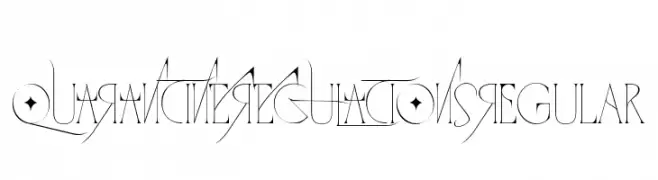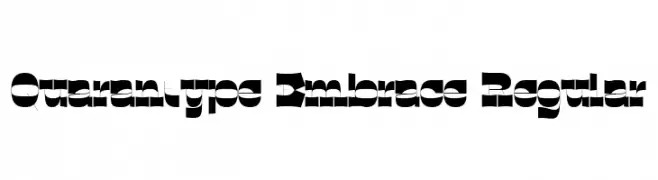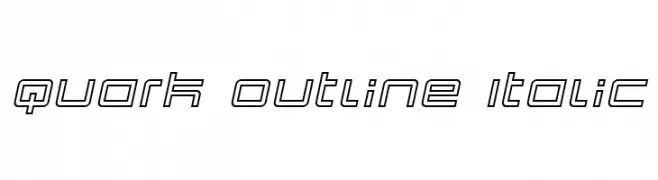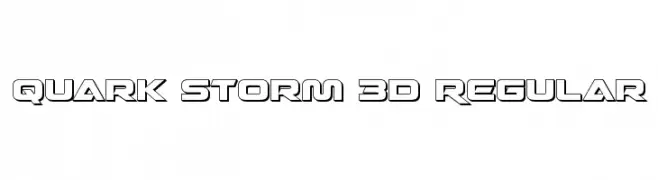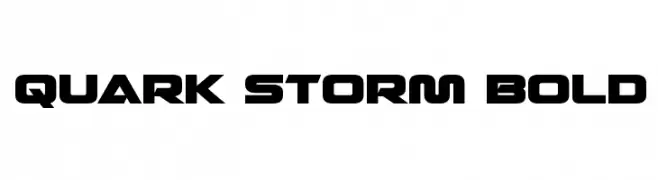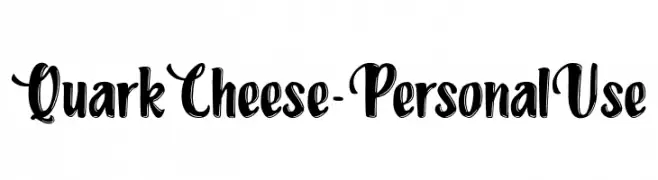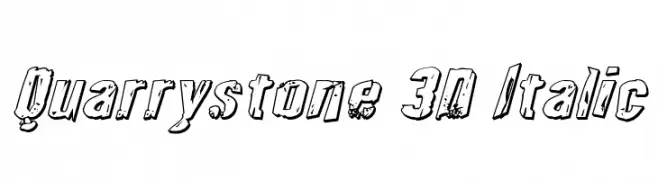
A decorative and artistic font with elongated strokes and sharp serifs.
A classic, elegant script font with flowing, cursive letterforms and medium contrast.
A bold, dynamic script font with high contrast and a sense of motion.
A bold, high-contrast font with geometric and artistic elements.
A bold, geometric font with a modern and futuristic style.
A bold, geometric font with modern, angular lines and unique cutouts.
A classic serif font with elegant strokes and a modern twist.
A modern, geometric font with consistent stroke width and rounded edges.
A bold, angular font with a futuristic and geometric style.
A modern, italicized font with a sleek, futuristic design and tight character spacing.
A geometric outline font with a futuristic and modern aesthetic.
A modern, geometric outline font with an italic slant, ideal for futuristic designs.
A dynamic 3D italic font with a futuristic and bold design.
A bold, futuristic 3D font with sharp angles and geometric shapes.
A bold, italicized font with a futuristic and dynamic design.
A bold, futuristic font with geometric and angular design elements.
A bold, futuristic font with sharp angles and geometric shapes.
A bold, italicized font with a futuristic and dynamic style.
A bold, futuristic font with angular, geometric characters and a condensed width.
A bold, condensed, and italic font with a futuristic and dynamic style.
A bold, futuristic font with expanded width and angular, geometric characters.
A bold, expanded, and italicized futuristic font with sharp angles.
A futuristic, italic font with gradient line effects and sharp angles.
A futuristic, bold font with a dynamic horizontal line pattern.
A bold, italicized font with a futuristic and dynamic style.
A bold, italic, futuristic font with sharp, angular edges and a dynamic style.
A futuristic, bold font with geometric shapes and sharp angles.
A bold, futuristic font with a leftward slant and angular design.
A bold, futuristic font with sharp, angular edges and a strong geometric structure.
A bold, distressed font with a rugged, vintage appearance.
A bold, playful script font with a hand-drawn, decorative style.
A bold, bone-like font with a jagged, textured design ideal for spooky themes.
A bold, 3D, distressed font with an italic slant and a rugged, stone-like appearance.